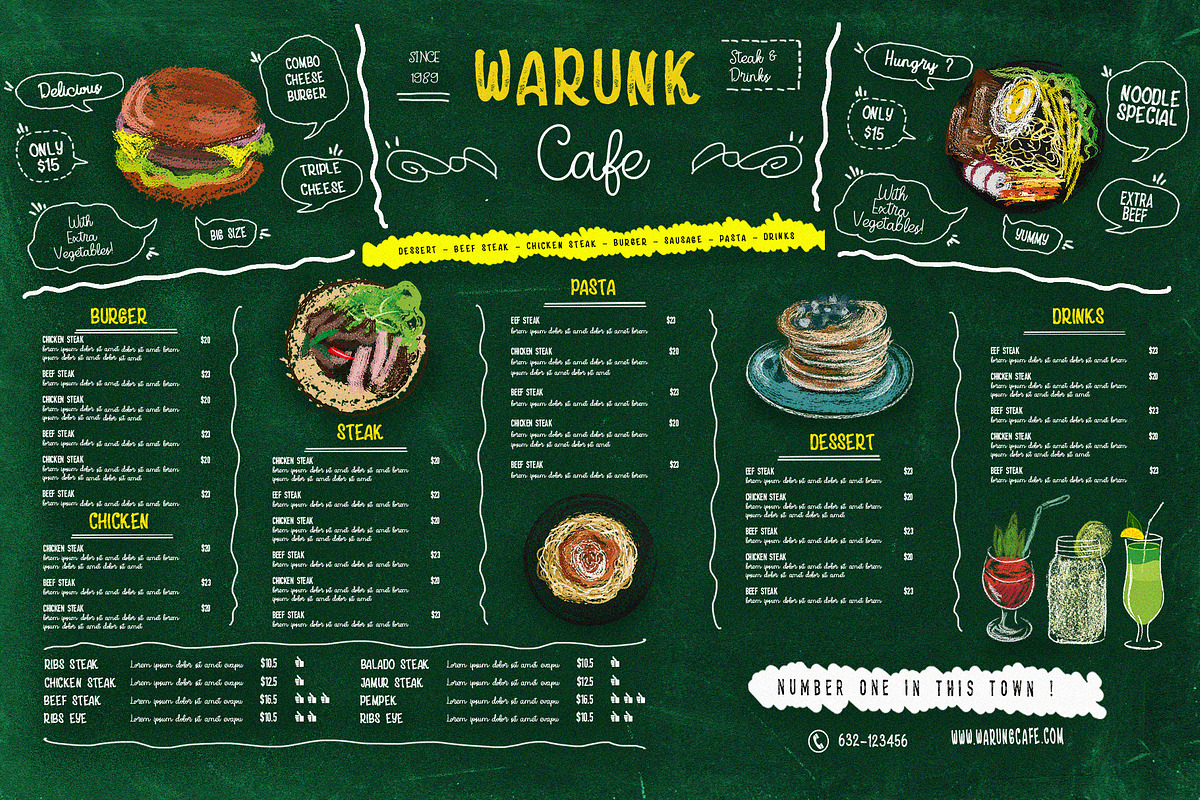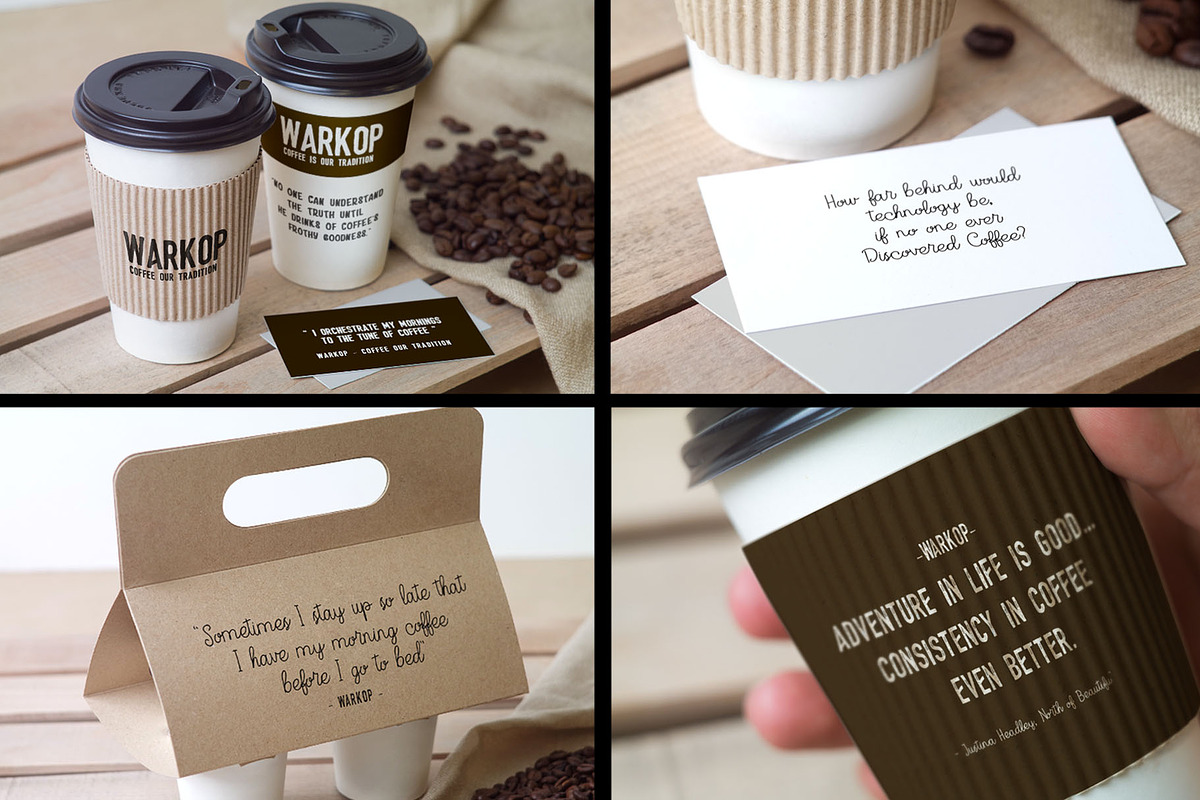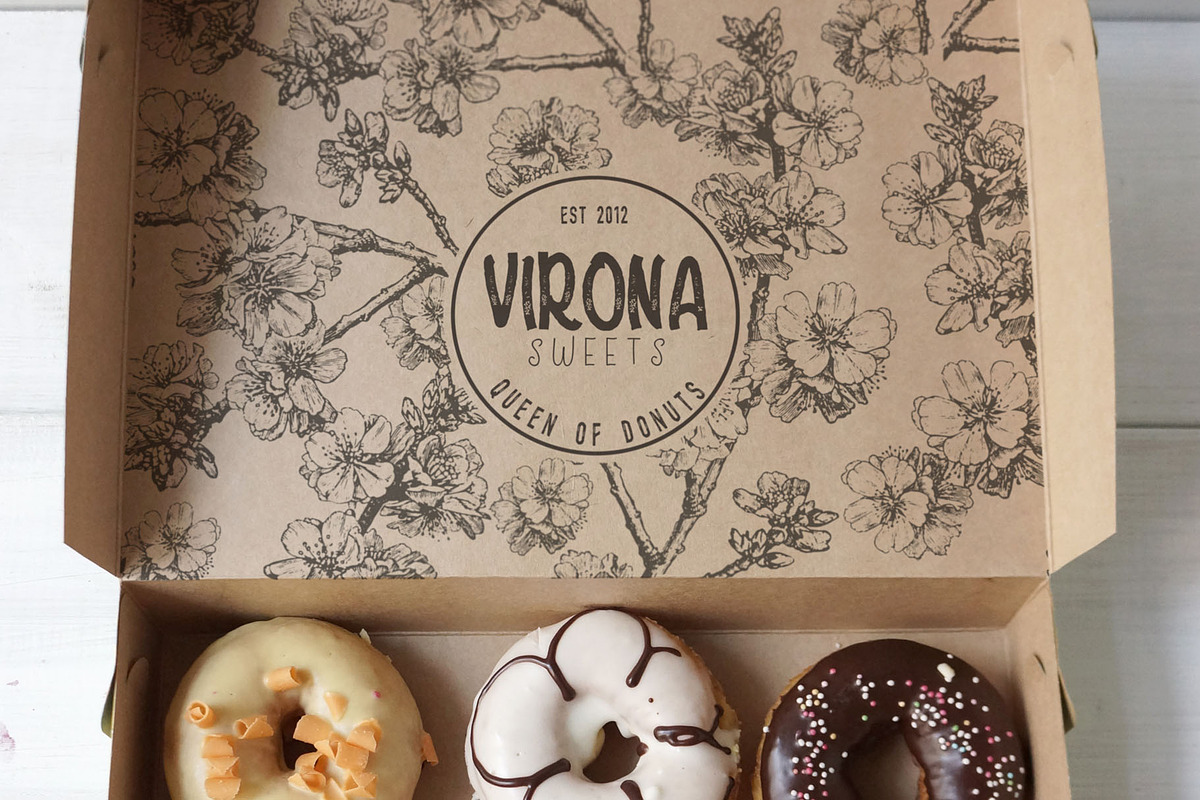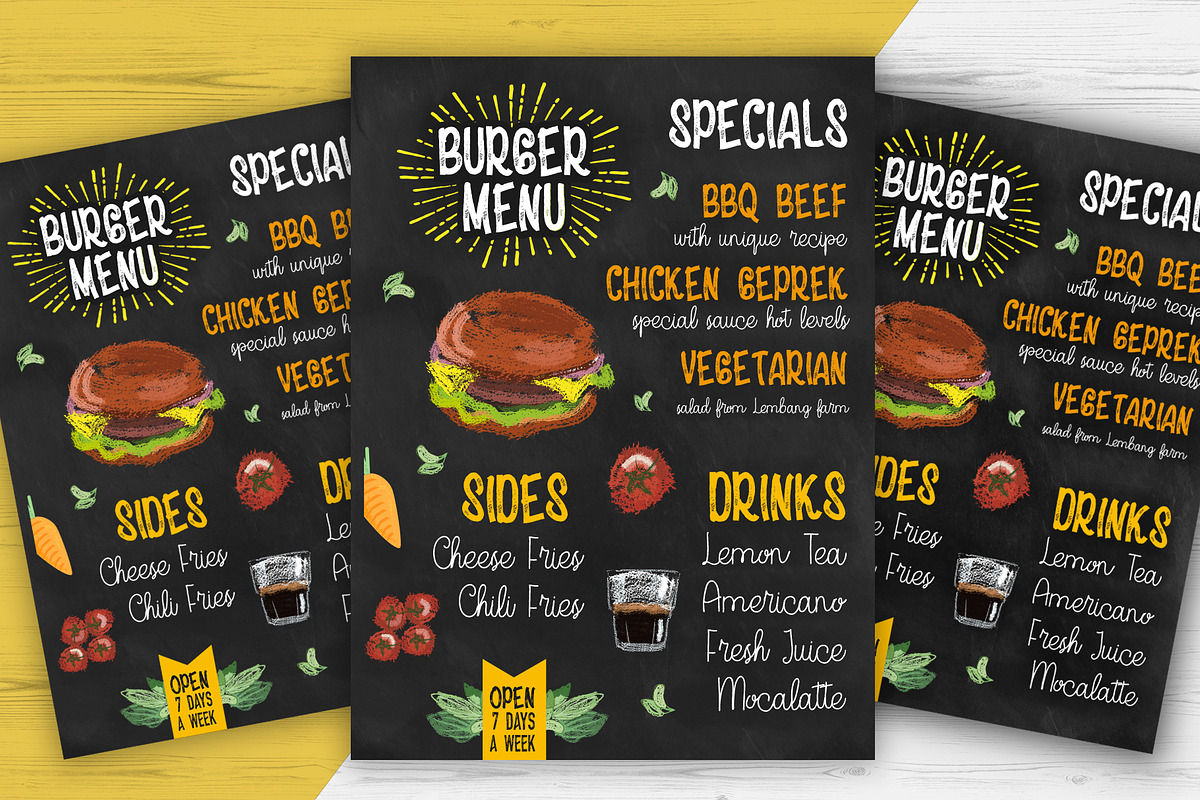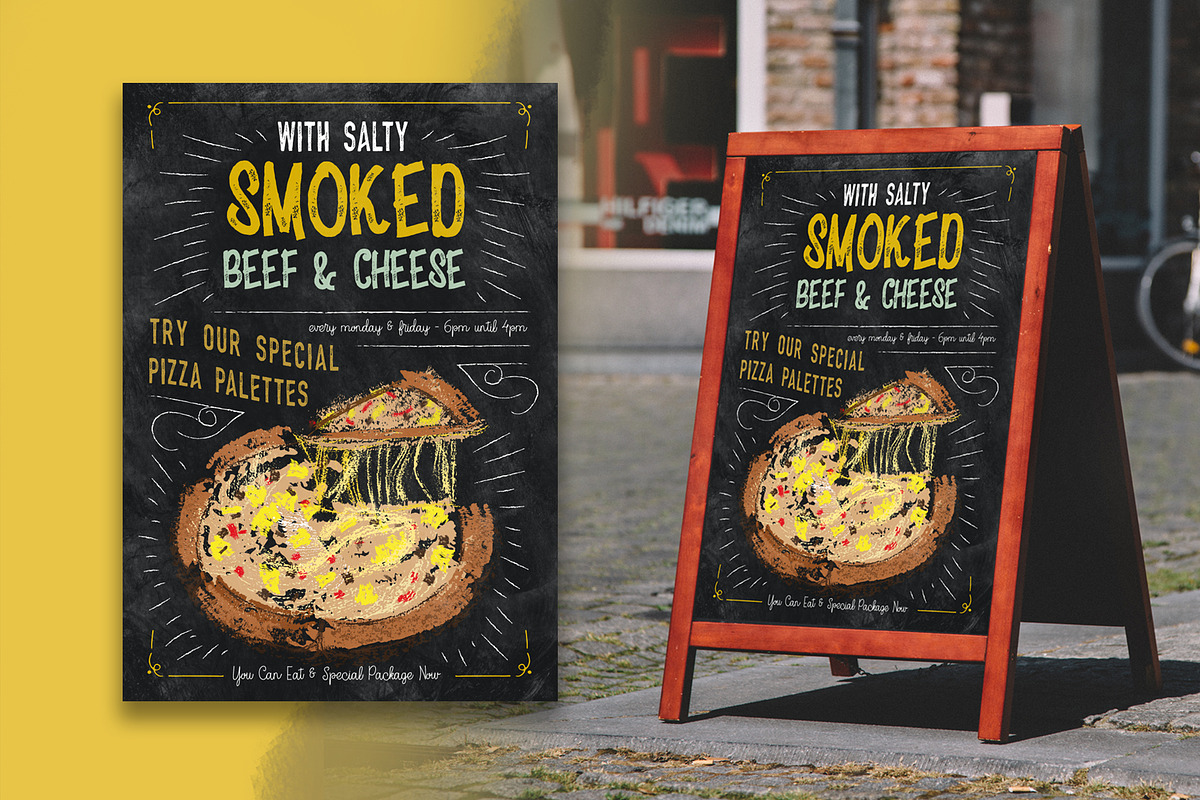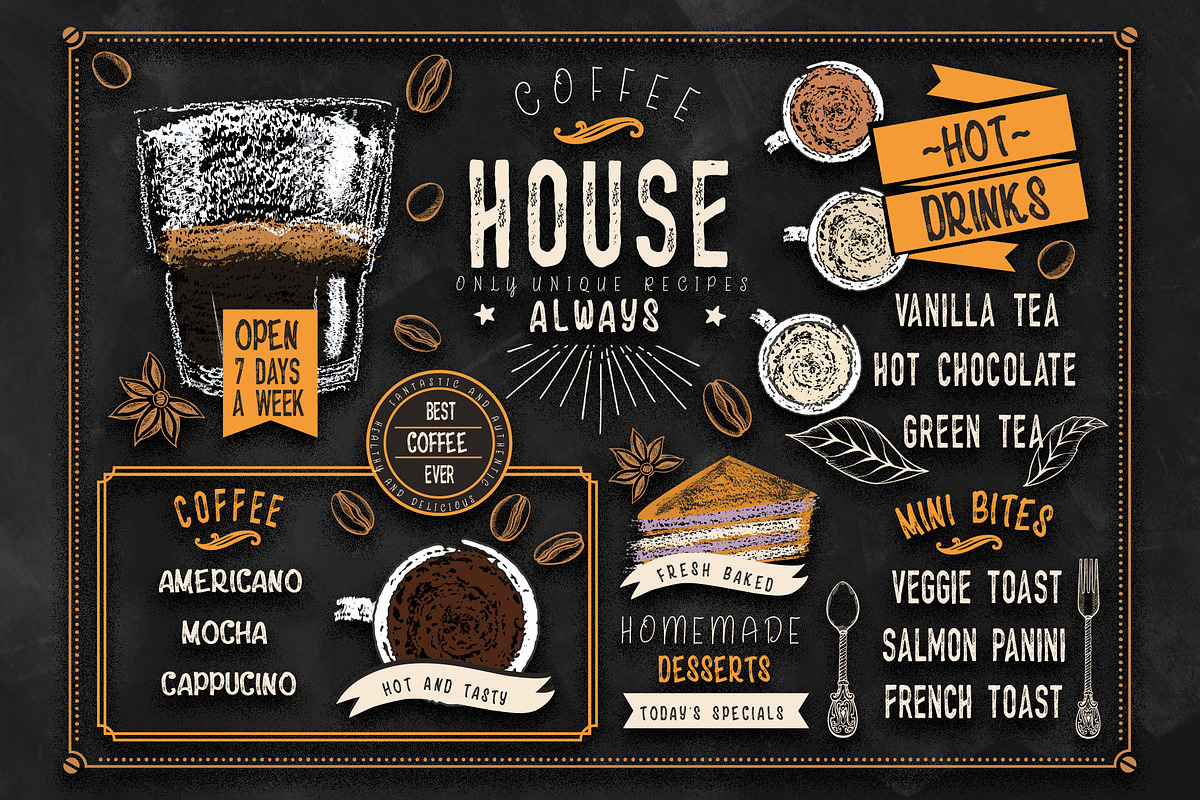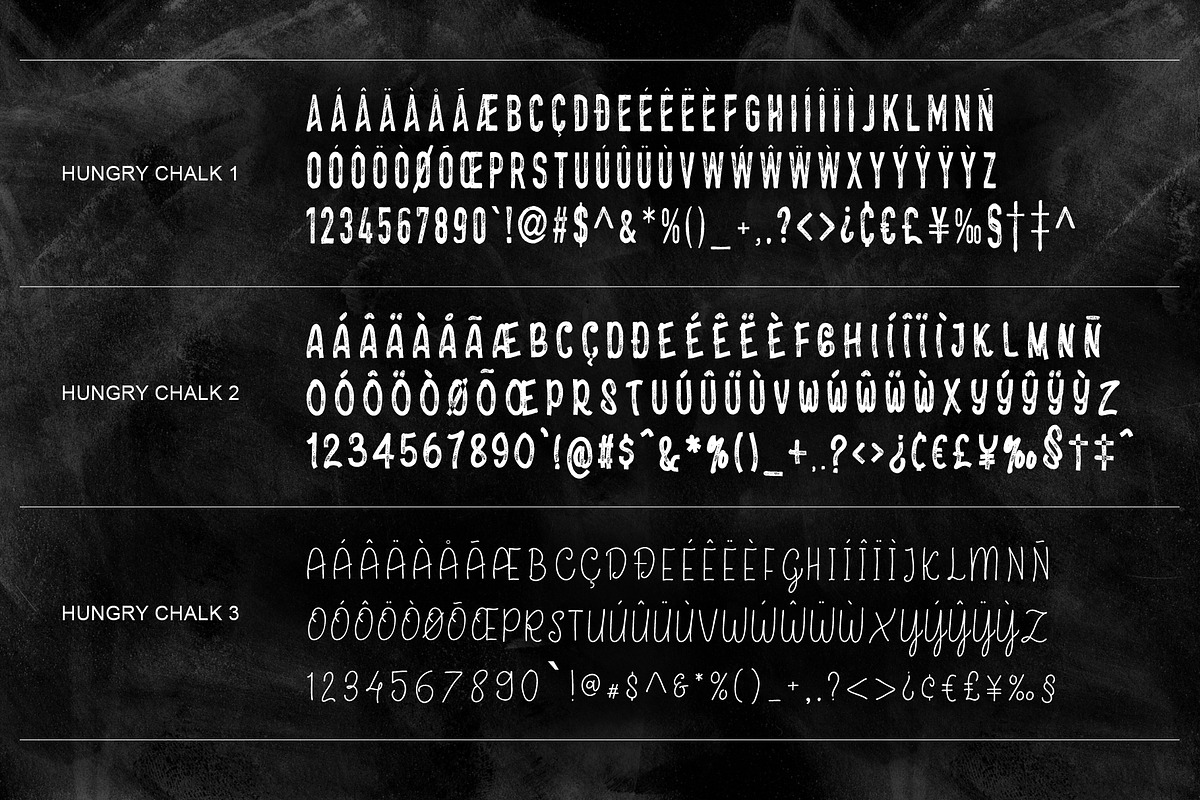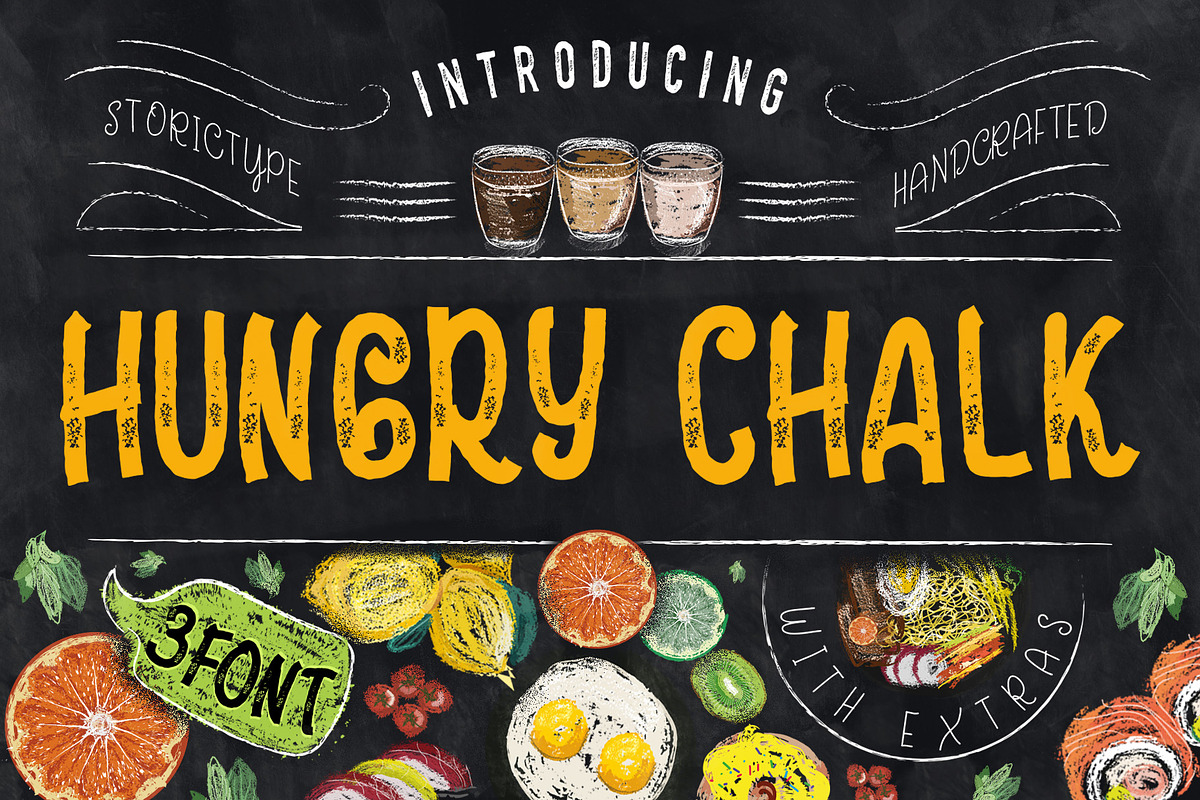
HungryChalk Typeface
Reborn Typeface with Extras :
3 IN 1 Chalk Fonts Bundle + Extras :
HungryChalk Still with a chalk concepts, This is good for projects like a menuboards it's specially designed cafe or restaurant ,background photoboots wedding, t-shirt, posters,etc and a touch of vector pack theme dessert, that allows you to mix and match pairs of ornaments to fit your design .